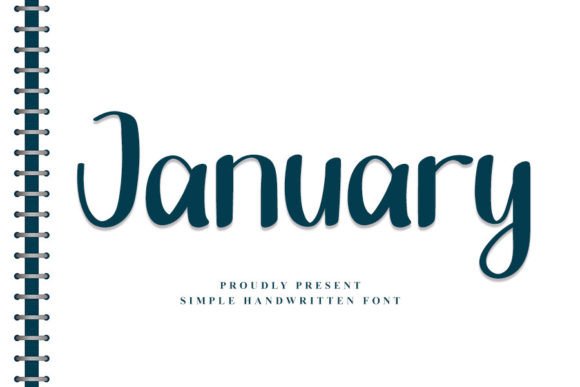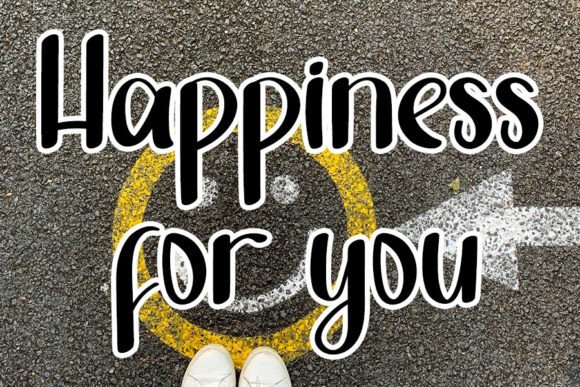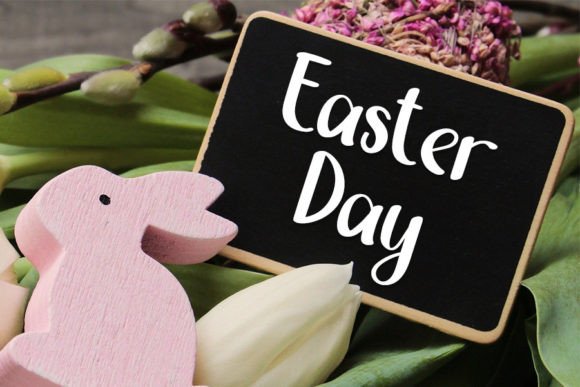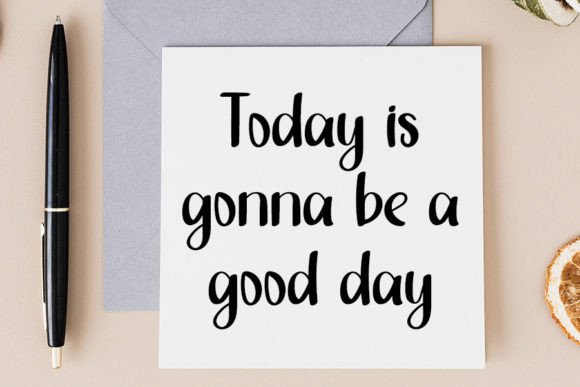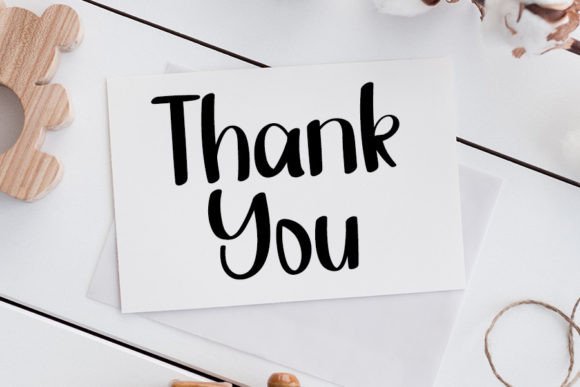
January Font
What Is January Font?
January is a friendly handwritten font designed to bring warmth and personality to any creative project. With its smooth curves and welcoming style, this font instantly makes your designs feel more personal and engaging. Because it’s carefully crafted, January is a reliable choice for both personal and professional work.
You’ll quickly see how it transforms your ideas into eye-catching creations.
January is a versatile font that fits beautifully into many design scenarios. For example, it’s perfect for greeting cards. Whether you’re designing birthday wishes, thank-you notes, or holiday greetings, January adds a heartfelt touch that feels genuine.
Additionally, it works wonderfully for branding. If you want your brand to appear friendly and approachable, this font helps you create logos, business cards, and packaging that stand out.
It’s also ideal for social media graphics. With January, your posts gain a warm, inviting feel that captures attention and encourages interaction.
When you design wedding invitations or event signage, January adds a charming, personal vibe that your guests will love.
Moreover, you can use it in digital products, printables, or DIY projects. Even the simplest layouts look polished and lively with this handwritten style.
Why Should You Choose January Font?
There are many reasons to include January in your font collection. First, it’s highly legible in all sizes. Whether you use it in large headlines or small captions, each letter remains clear and attractive.
Also, January pairs beautifully with clean serif or sans-serif fonts, helping you create cohesive and balanced designs quickly.
Designers love that it looks polished from the first use, saving time while delivering professional results.
January Font brings warmth, friendliness, and a touch of playfulness to every project. For example, when you want your designs to feel authentic and inviting, this font makes it easy.
Even minimalist layouts look more lively with January’s smooth and balanced letters. Whether you’re creating branding, packaging, or digital content, your work will feel modern and memorable.
Using a premium handwritten font also shows your dedication to detail and high-quality design. This builds trust and leaves a positive impression on your audience.
January Font is more than a typeface—it’s a creative tool that helps you share ideas with clarity and warmth. From greeting cards and social media posts to branding and event materials, this font adapts beautifully and brings your designs to life.